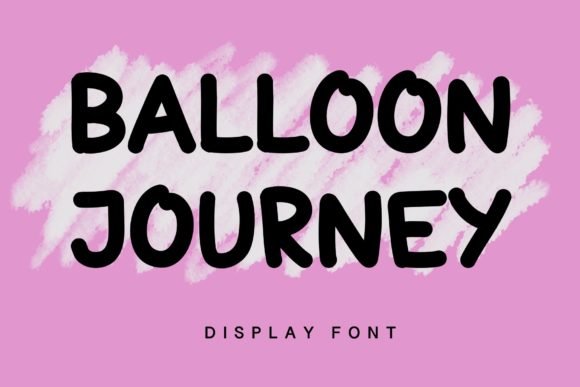
Bring Your Creative Ideas to Life with Ballon Journey Font
Have you ever been sitting at your desk, staring at a blank page, and suddenly an idea hits you? The excitement is palpable, and you can’t wait to bring it to life. This is the moment when creativity knows no bounds, and the possibilities seem endless. As a designer, you know that the right font can make all the difference in conveying your vision and captivating your audience.
That’s where Ballon Journey Font comes in – a dazzling display font that’s sure to turn any creative idea into a true standout. This charming and friendly font is perfect for designers looking to add a touch of whimsy and personality to their projects. With Ballon Journey Font, you’ll be able to elevate your designs and make a lasting impression on your viewers.
- Unique Characteristics: Ballon Journey Font features a unique, playful, and whimsical design with a mix of handwritten and modern elements, making it perfect for creative projects and designs that require a touch of elegance and sophistication.
Overall, I was quite excited to dive into the Ballon Journey Font, hoping for a unique and captivating experience. ✨ Here are some of its standout features:
- Cute and playful aesthetic, perfect for kid’s books or creative projects
- Good range of weights, allowing for flexibility in design
- Well-designed for use in both digital and print media
However, as I dug deeper, I encountered some limitations that left me feeling a bit disappointed:
- ⚠️ Limited language support, making it less suitable for multilingual projects
- ⚠️ Not ideal for professional or formal designs due to its casual feel
- ⚠️ Some characters feel a bit rough around the edges, which can be distracting
My overall impression is that the Ballon Journey Font is a great option for personal projects or creative endeavors where a playful vibe is needed. It’s not, however, the best choice for complex or formal designs. With some tweaks to address its limitations, I think it has potential to become a more versatile and attractive font.
For the best results, use Balloon Journey Font in conjunction with colorful illustrations and playful graphics. It’s perfect for creating eye-catching invitations, party decorations, and social media graphics.
Some common use cases for Balloon Journey Font include:
– Party invitations and decorations
– Children’s books and educational materials
– Advertising and marketing materials
Alternatives to Ballon Journey Font for Designers
Pacifico is a beautiful, elegant script font ideal for creating a luxurious and sophisticated atmosphere. It’s perfect for use in wedding invitations, branding, and advertising materials.
Compared to Ballon Journey Font, Pacifico has a more refined and polished look, making it suitable for high-end designs. It lacks the playful and whimsical feel of Ballon Journey Font, but its sophistication makes it a great alternative for designers looking to create a more elegant look.
Great Vibes is a modern script font that exudes a sense of relaxation and calmness. It’s perfect for use in travel brochures, wellness websites, and other designs that aim to evoke a sense of serenity.
Compared to Ballon Journey Font, Great Vibes has a more laid-back and casual feel, making it suitable for designs that require a relaxed and approachable tone. While Ballon Journey Font is more playful, Great Vibes is more subdued, making it a great alternative for designers looking to create a calming atmosphere.
Carolyna Pro is a elegant script font with a touch of sophistication and luxury. It’s perfect for use in high-end branding, advertising materials, and other designs that require a refined and polished look.